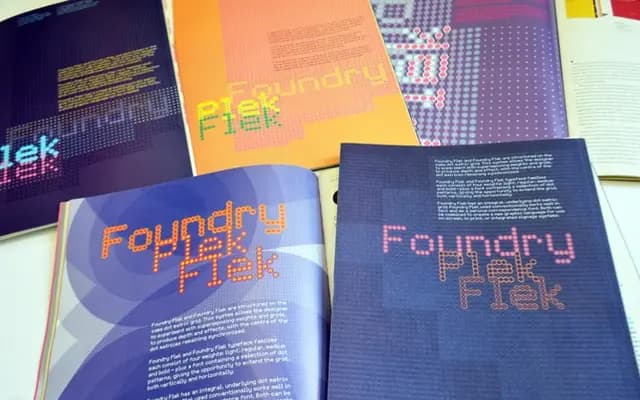
Foundry Flek
A dot-matrix display typeface built on a strict 5x9 grid, with a visible background dot pattern that aligns perfectly when set solid to create continuous graphic fields.
Each letterform in Foundry Flek is constructed from circular dots on a 5x9 grid, with the background matrix retained behind the letters. When set solid, the dots align both vertically and horizontally to form a seamless repeating pattern across a text block. As weights increase from Light to Bold, the dot centres remain fixed, allowing weights to be mixed and layered with precision for multi-colour or dimensional effects.
Foundry Flek is built entirely on a 5x9 dot matrix grid system, with the background grid visible behind the letterforms, placing it firmly in the display category as a decorative, system-grid typeface.